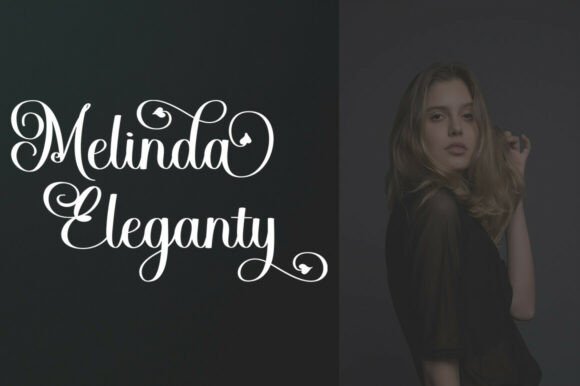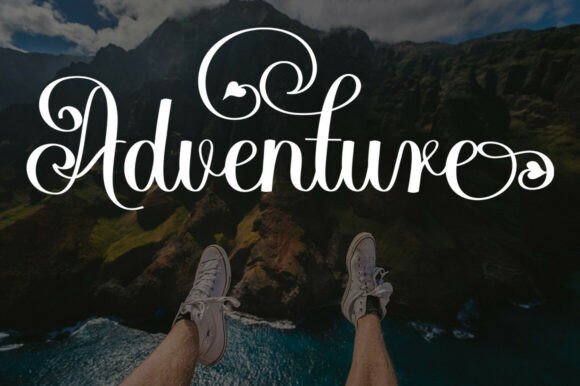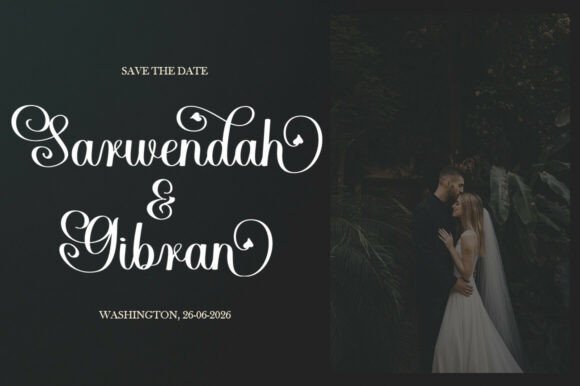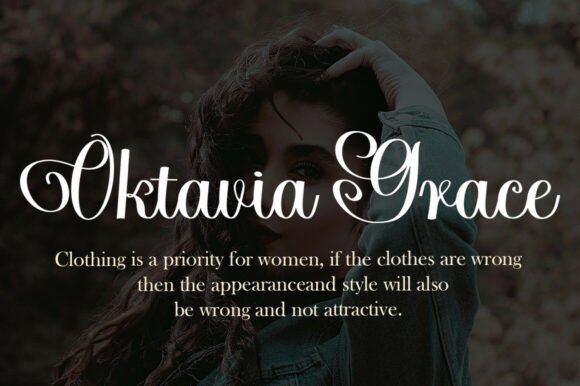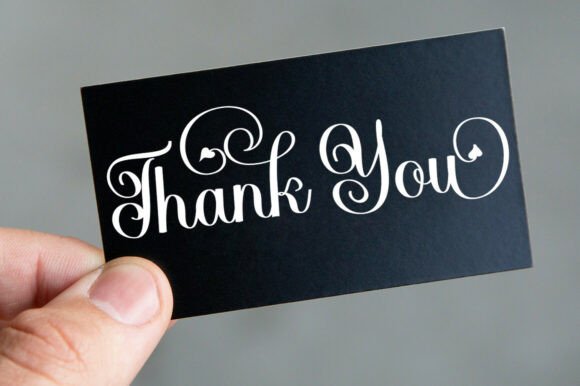
The Art of Elegant Design: Beautiful Calligraphy Font
As a designer, there’s nothing quite like the thrill of creating something beautiful from scratch. Whether you’re working on a wedding invitation, a brand identity, or a bespoke logo, the right font can make all the difference. And for those looking to add a touch of sophistication and whimsy to their designs, there’s one typeface that stands out from the rest: Beautiful Calligraphy Font.
This stunning calligraphy font is designed to evoke a sense of romance and timelessness, with flowing curves, elegant swashes, and refined letterforms that will elevate any project to new heights. With its modern calligraphic style and seamless blend of beauty and readability, the Beautiful Calligraphy Font is a valuable asset for designers seeking to add a touch of class and professionalism to their work.
As a PUA-encoded font, Beautiful Calligraphy Font offers effortless access to all glyphs, swashes, and alternate characters, making it the perfect choice for designers who want to customize their creations with ease and precision.
Beautiful Calligraphy Font Key Features
- Unique Characteristics: The font features intricate, hand-drawn letterforms with subtle flourishes and elegant connections, creating a sophisticated and elegant look.
- Customization Options: The font includes a set of ornaments and swashes, allowing designers to add a personal touch to their designs.
Beautiful Calligraphy Font Review
I recently had the chance to work with the “Beautiful Calligraphy Font” and overall, I’m quite impressed. ✨ Here are some of its strengths:
- Unique and elegant style that can add a touch of sophistication to any design
- Highly customizable with a wide range of font sizes, colors, and styles
- Excellent for creating invitations, wedding cards, and other special occasion designs
However, there are a few limitations I’d like to point out: ⚠️
- Can be quite overwhelming for beginners, as it has a lot of features and settings to navigate
- Not ideal for body text, as it’s a bit too ornate and may be difficult to read in large quantities
- Some users may find it too flashy or over-the-top for certain designs
Overall, I think the “Beautiful Calligraphy Font” is a great choice for designers who want to add a touch of elegance and sophistication to their work. While it may have some limitations, its unique style and high level of customization make it a valuable asset for any design project.
The Beautiful Calligraphy Font is perfect for creating elegant invitations, wedding stationery, and other special occasion designs. You can also use it for creating beautiful quotes, logos, and branding materials.
Remember to pair the Beautiful Calligraphy Font with a clean and simple design to make it stand out.